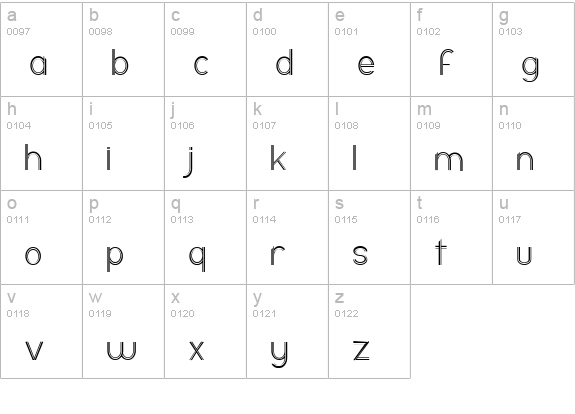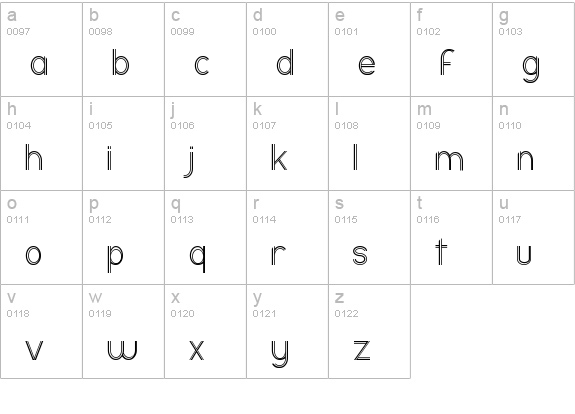
Ericott Font Details
Ericott font is a stylish and versatile typeface that exudes elegance and sophistication. With its clean lines and modern look, this font is perfect for a wide range of design projects, from branding to editorial layouts. The Ericott font features a unique blend of classic and contemporary elements, making it stand out from the crowd. What sets Ericott font apart is that it is not only visually appealing but also free to use. Yes, you read that right - this stunning font is freely available to download at FontsMarket.com. Whether you're a graphic designer, blogger, or business owner looking to elevate your visual content, Ericott font is a fantastic choice that won't cost you a penny. Don't miss out on this opportunity to enhance your designs with the timeless beauty of Ericott font.